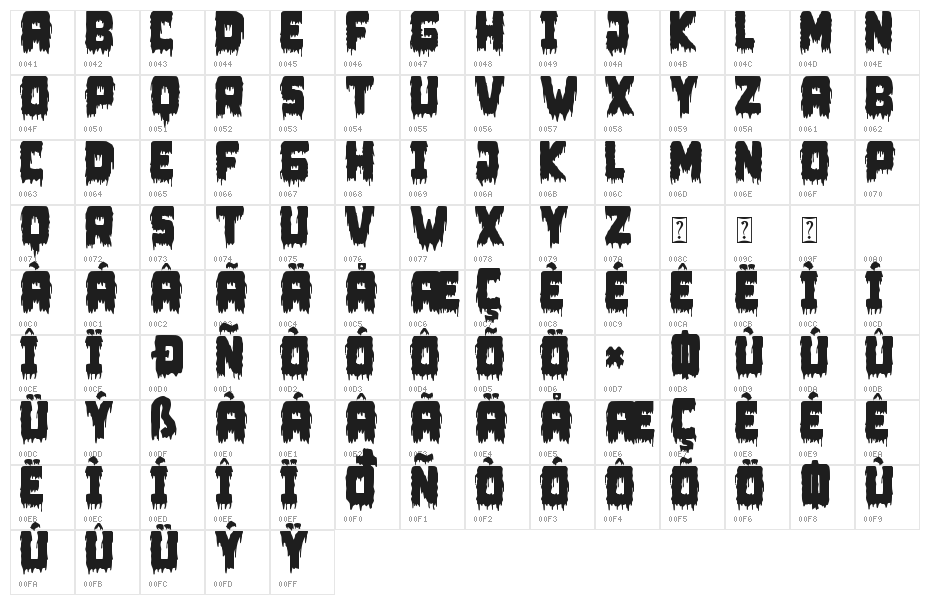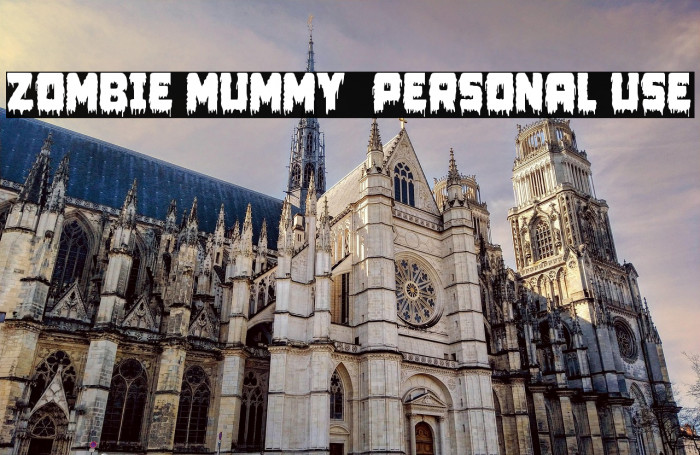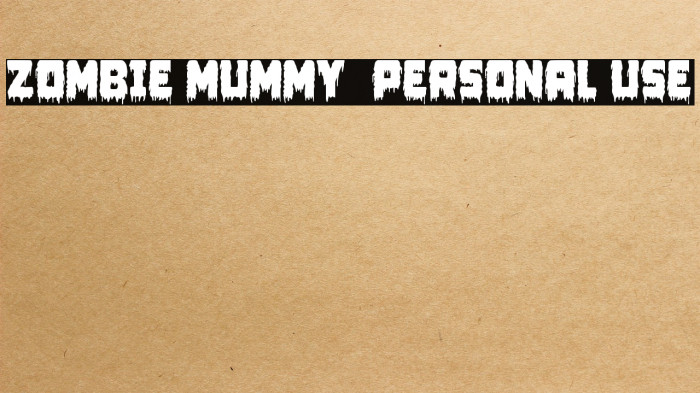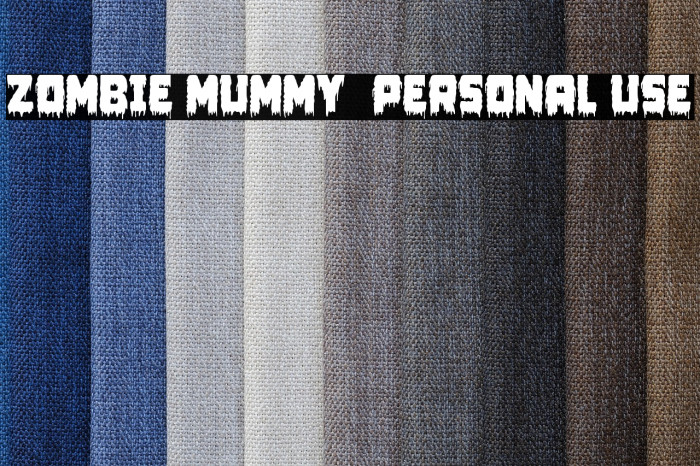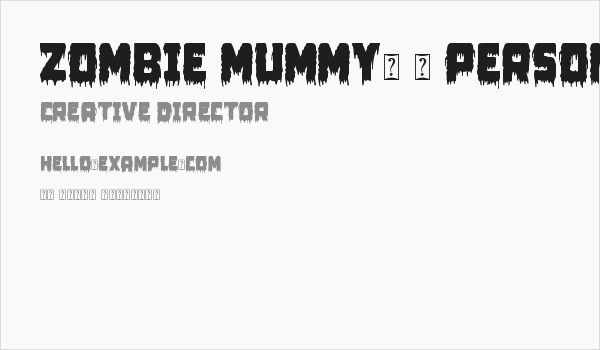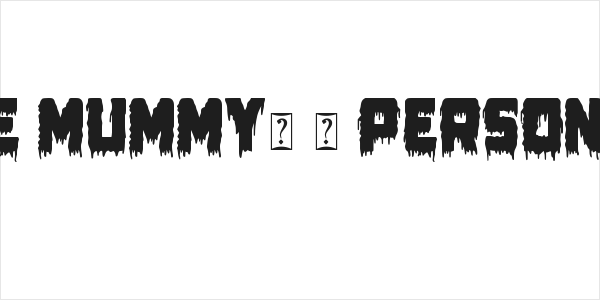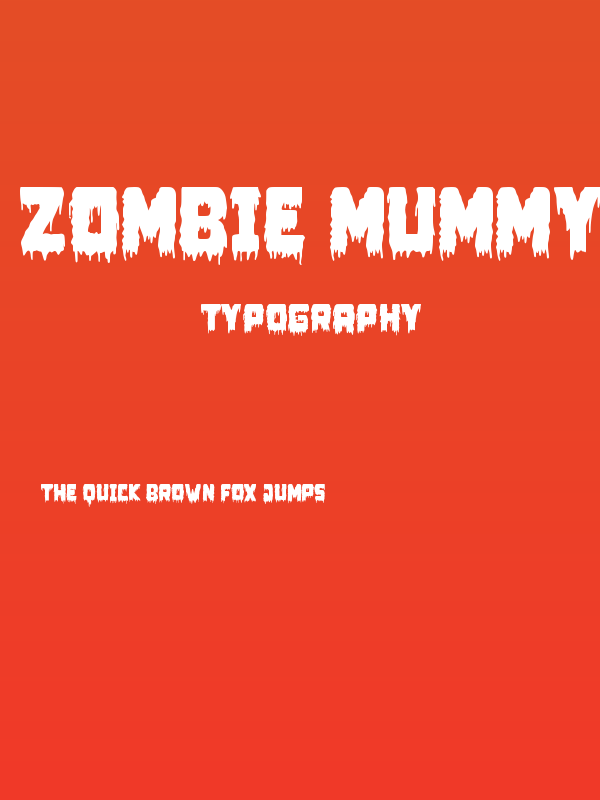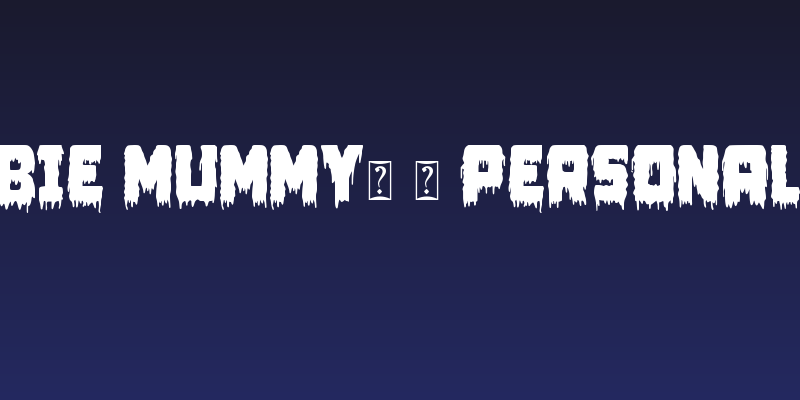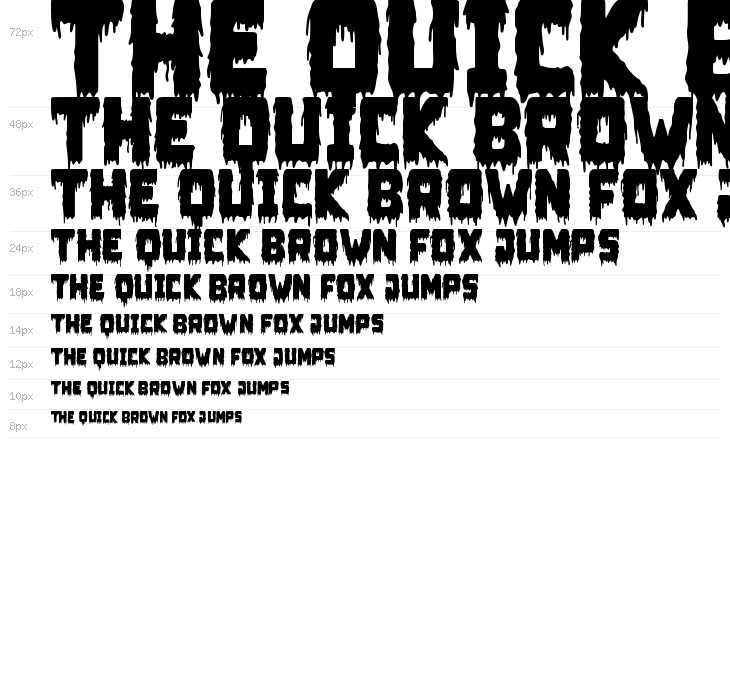
Zombie Mummy1 - Personal use Font
Zombie Mummy1 - Personal use Description
This font features a bold, dripping effect that gives it a spooky, horror-themed appearance. The characters are uppercase and have a jagged, uneven baseline, reminiscent of melting or dripping liquid. The design is highly decorative, making it suitable for Halloween or horror-themed projects. The bold strokes and irregular edges create a sense of movement and chaos, enhancing its eerie aesthetic. The font's unique style captures attention and evokes a sense of mystery and suspense, perfect for creating a chilling atmosphere.
| Proposed Projects | Ideal for Halloween invitations, horror movie posters, haunted house flyers, and themed event signage. |